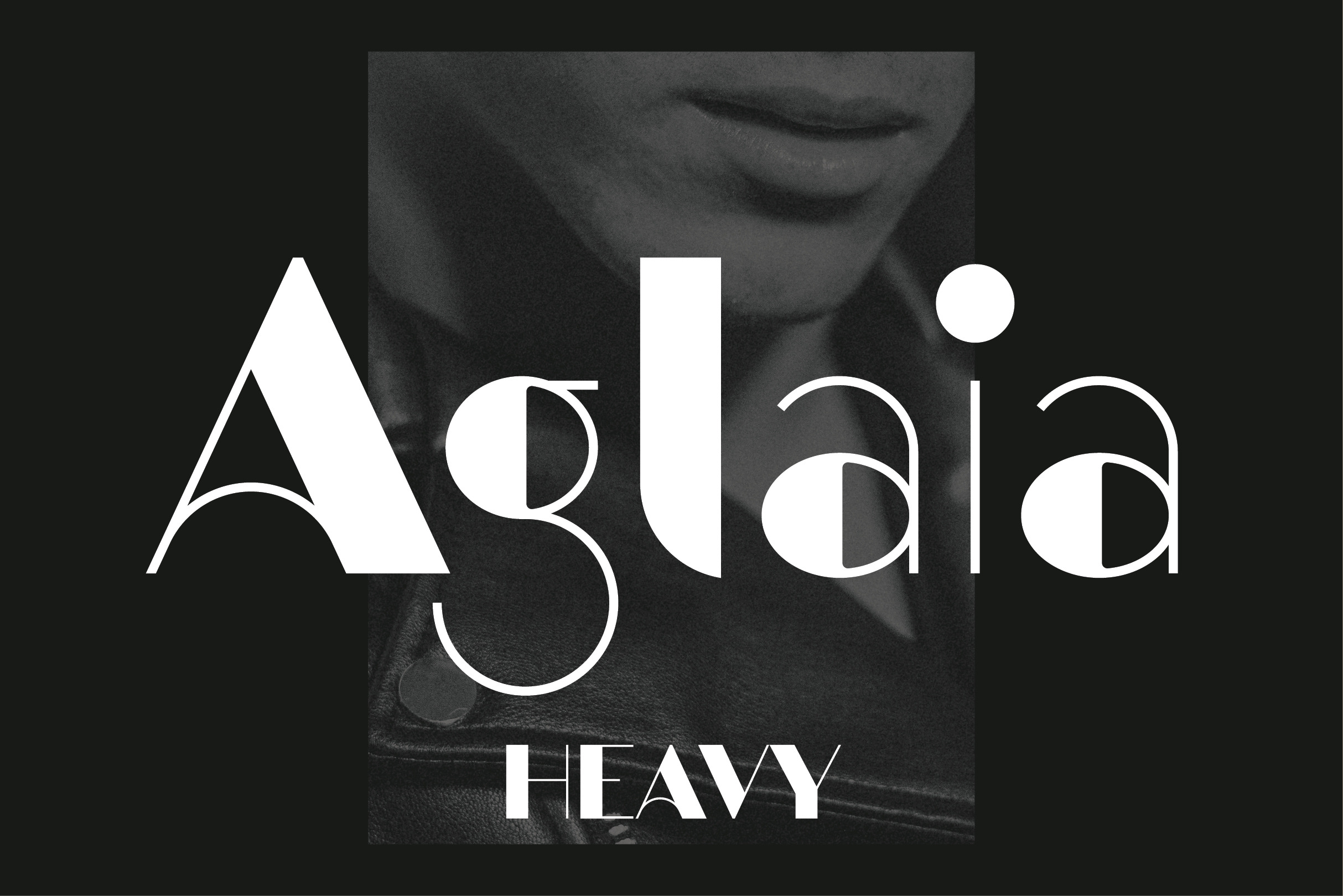
Aglaia Heavy is an elegant geometric sans serif font. Designed in part inspired by Art Deco, but with a modern minimalist approach that makes it a versatile and excellent contemporary display font for titles, editorials and short texts.